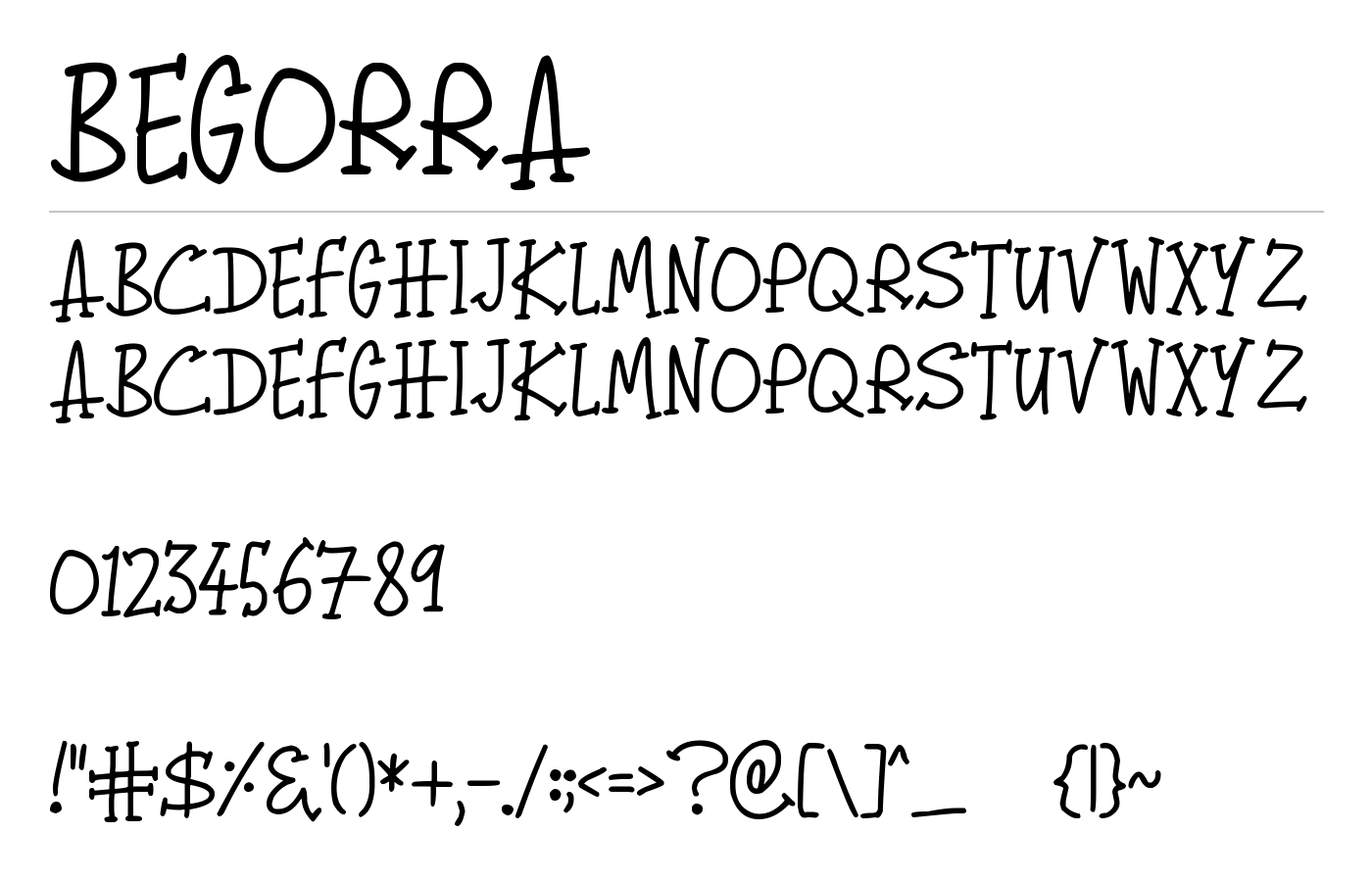
Begorra is a playful and lively handwritten sans serif font featuring tall, narrow letterforms with whimsical, slightly irregular strokes that give it a casual and friendly feel. Its light weight and open spacing make it perfect for creative designs needing an informal, approachable personality, such as children’s books, invitations, and fun branding projects. This font conveys warmth and charm while maintaining clear readability, making it ideal for eye-catching headlines and decorative uses.
Begorra Font
About Begorra Font